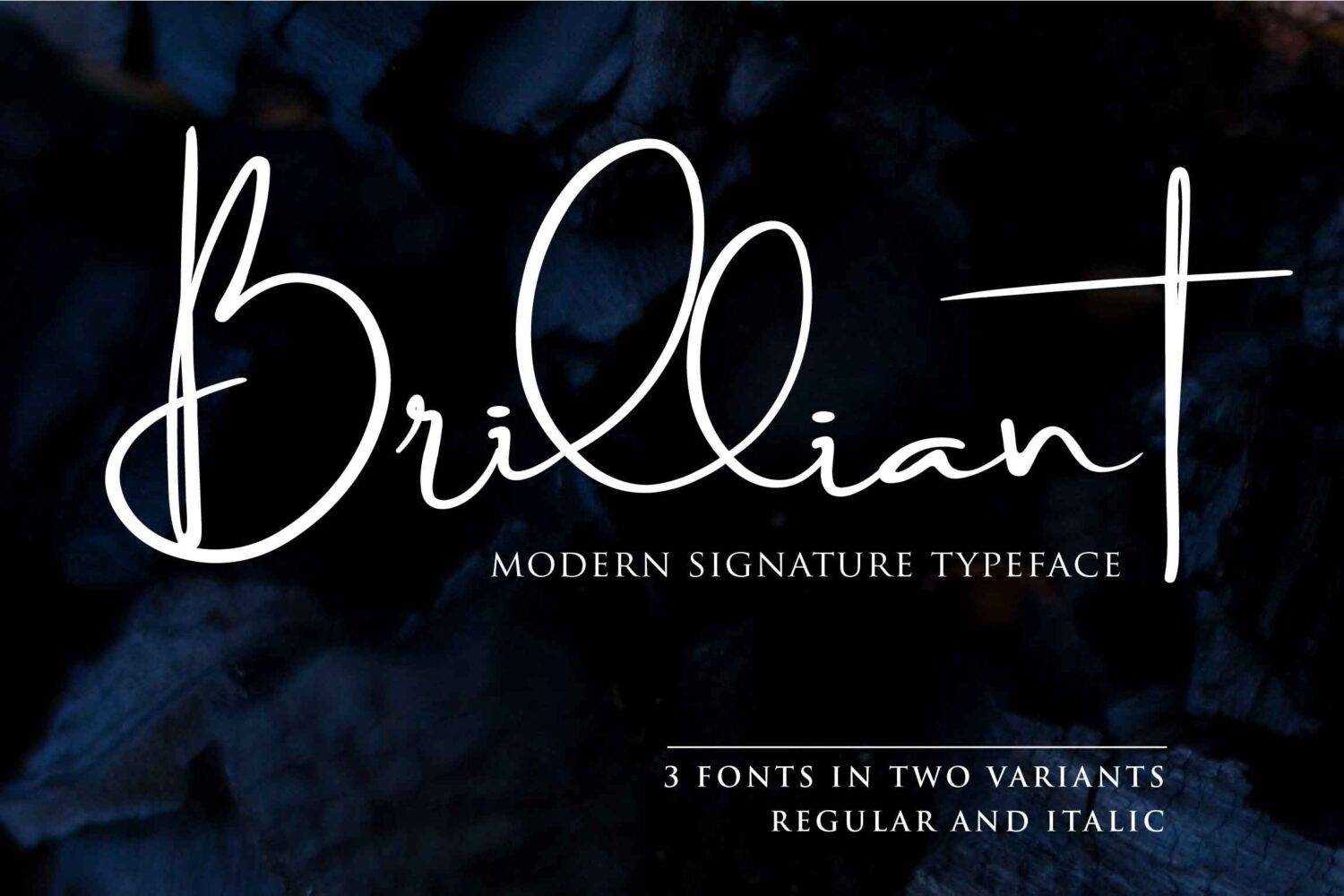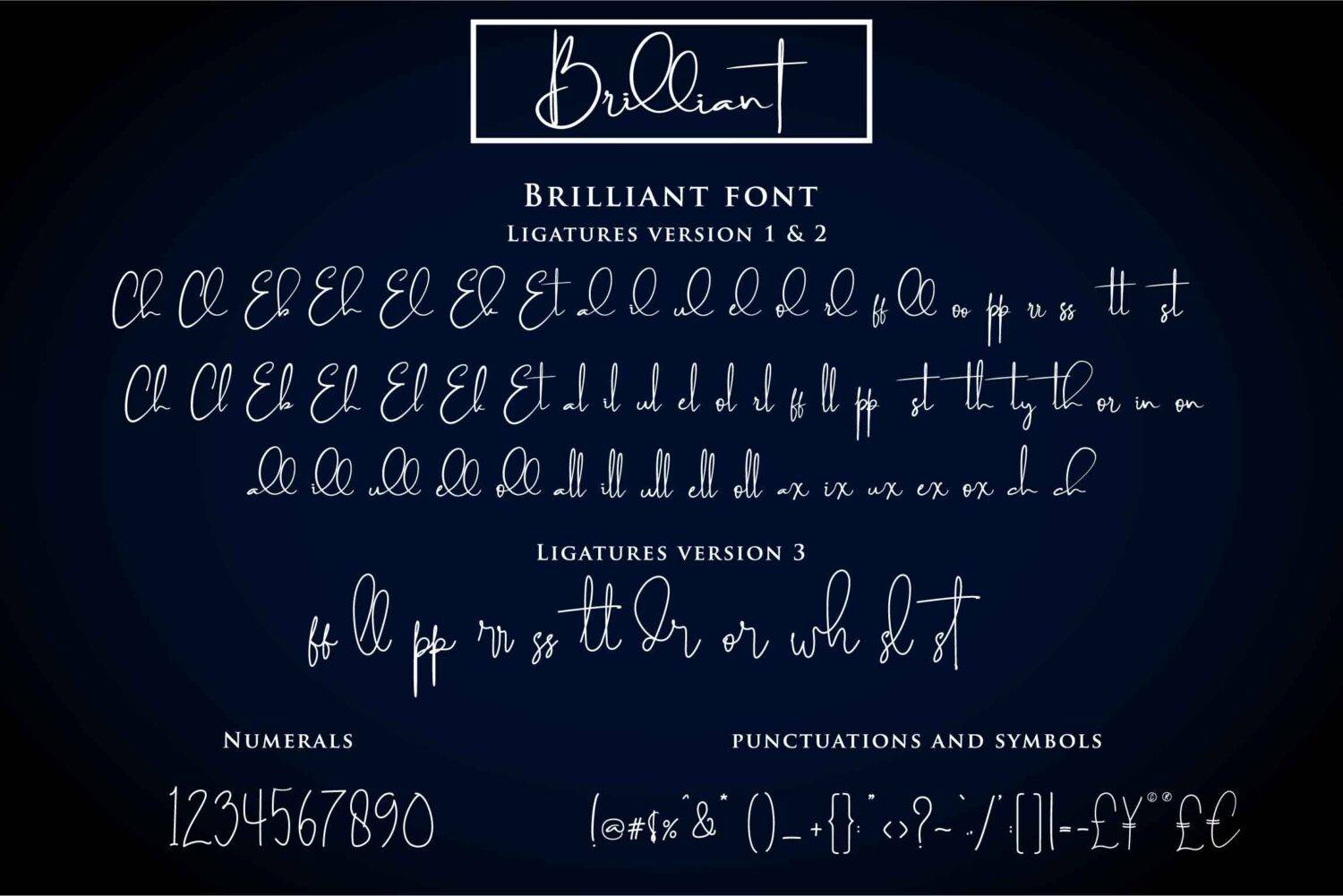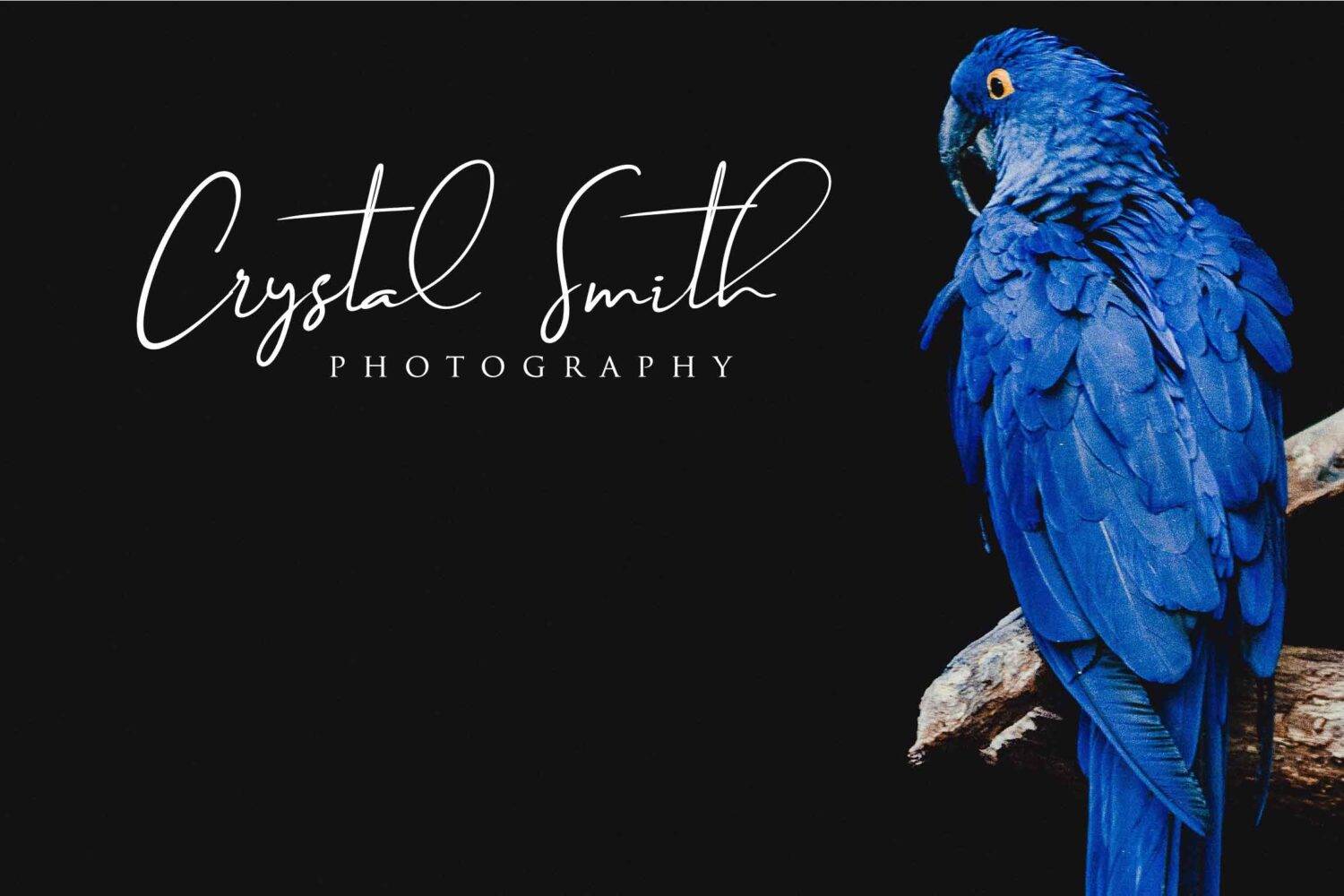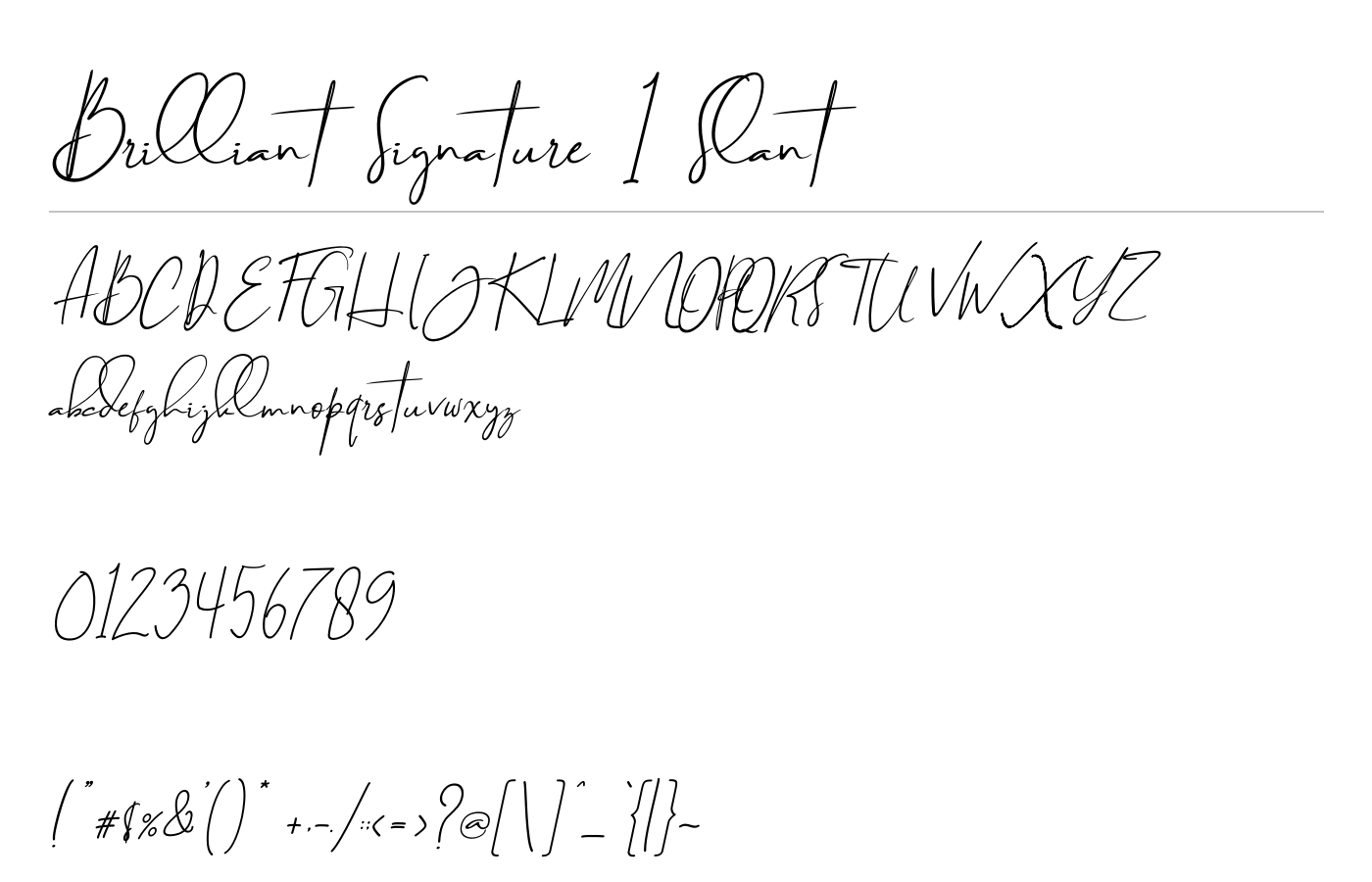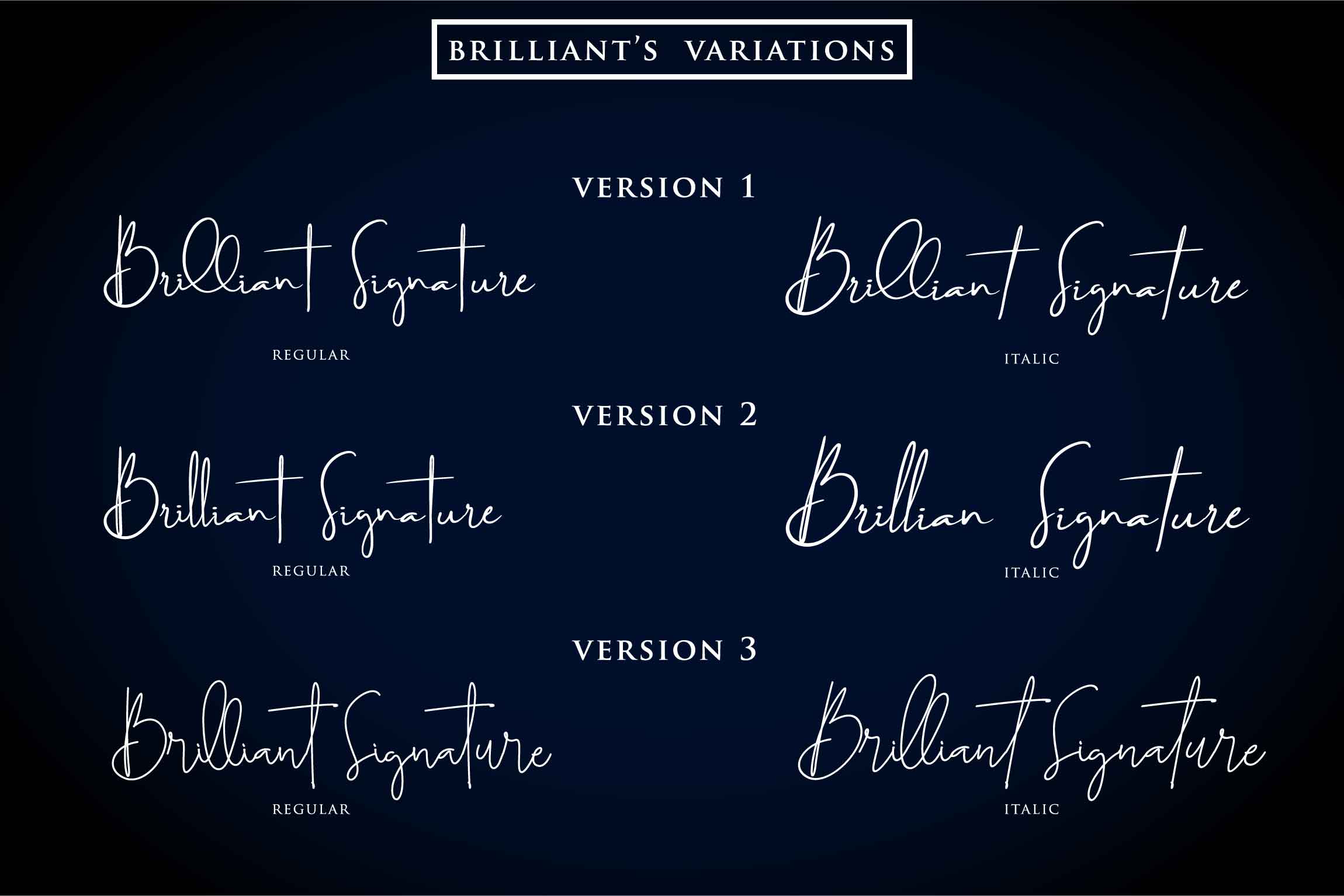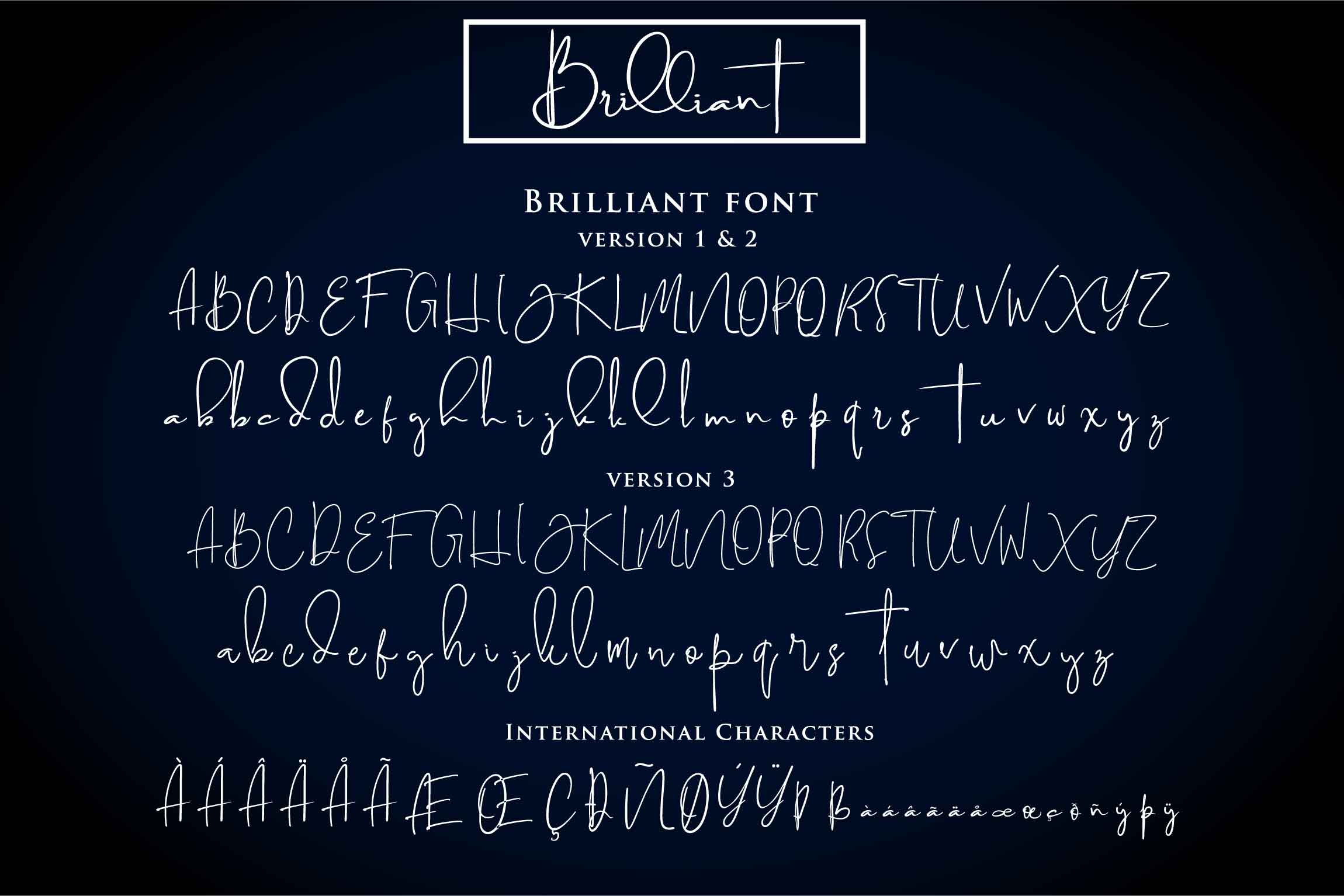
Brilliant Signature Typeface is an elegant, handwritten script font characterized by its thin, delicate strokes and graceful slant, giving it a natural, personal touch. Its airy, flowing letterforms evoke a sophisticated and modern feel, making it perfect for luxury branding, wedding invitations, and stylish logos where a refined yet approachable signature style is desired.
Brilliant Signature Typeface
About Brilliant Signature Typeface
| Font family | Brilliant Signature Typeface |